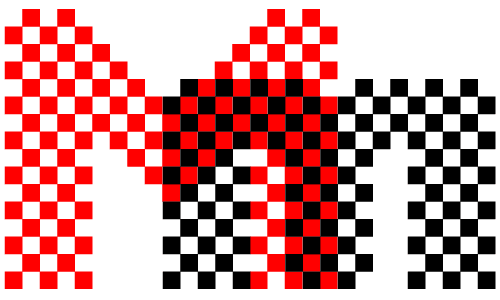
FRISCO_REMIX: M/m
Joe
Kral
This M started as a simple bitmap. I multiplied it several
times and adjusted the spaces. I wanted to get a halftone effect with
square pixels instead of circle patterns.